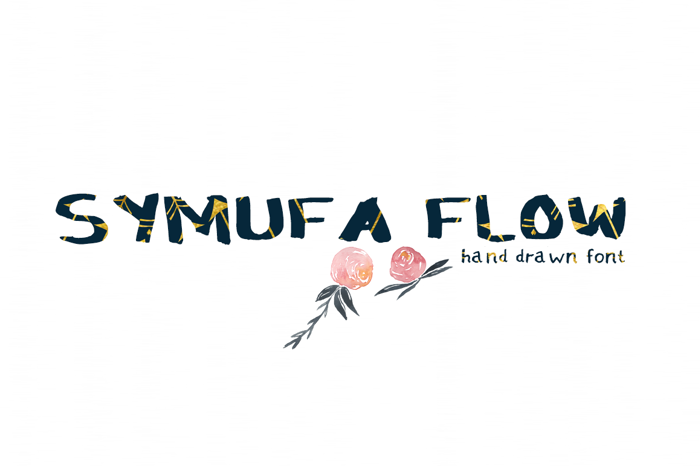
Symufa Flow Font
SymufaFlow is a new fresh & modern font with a handmade calligraphy style! So beautiful on invitation like greeting cards, branding materials, business cards, quotes, posters, and more!!